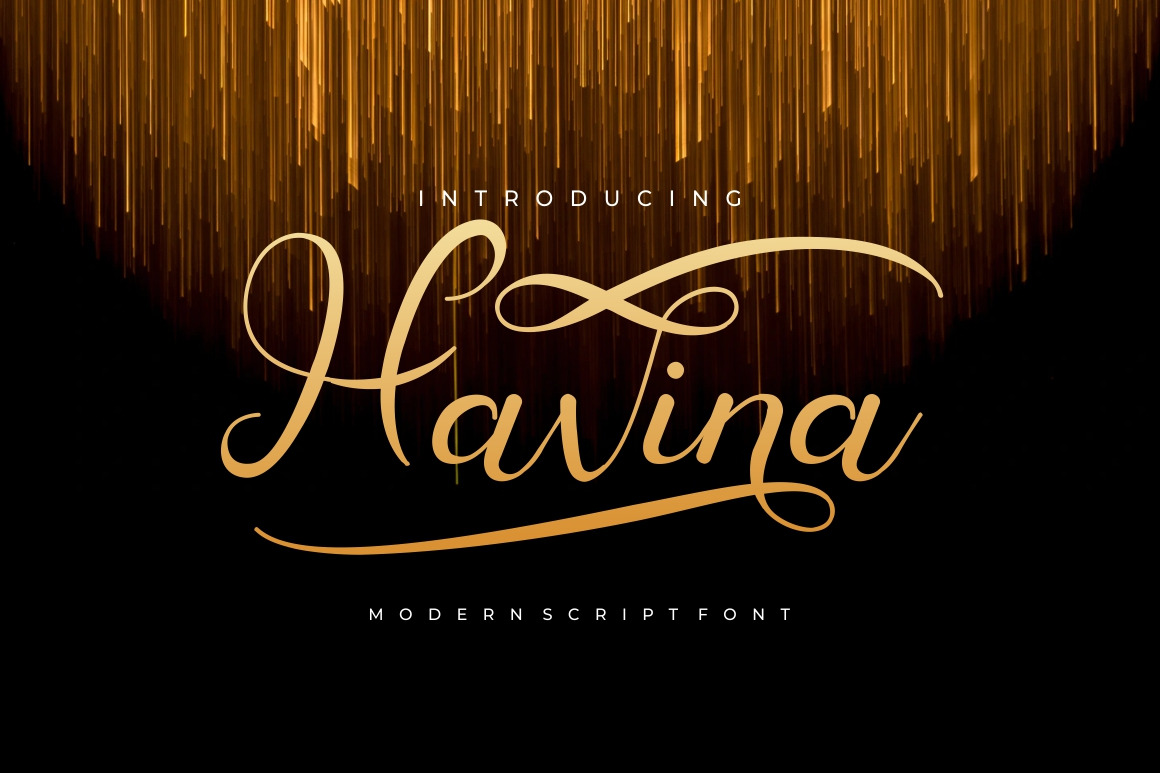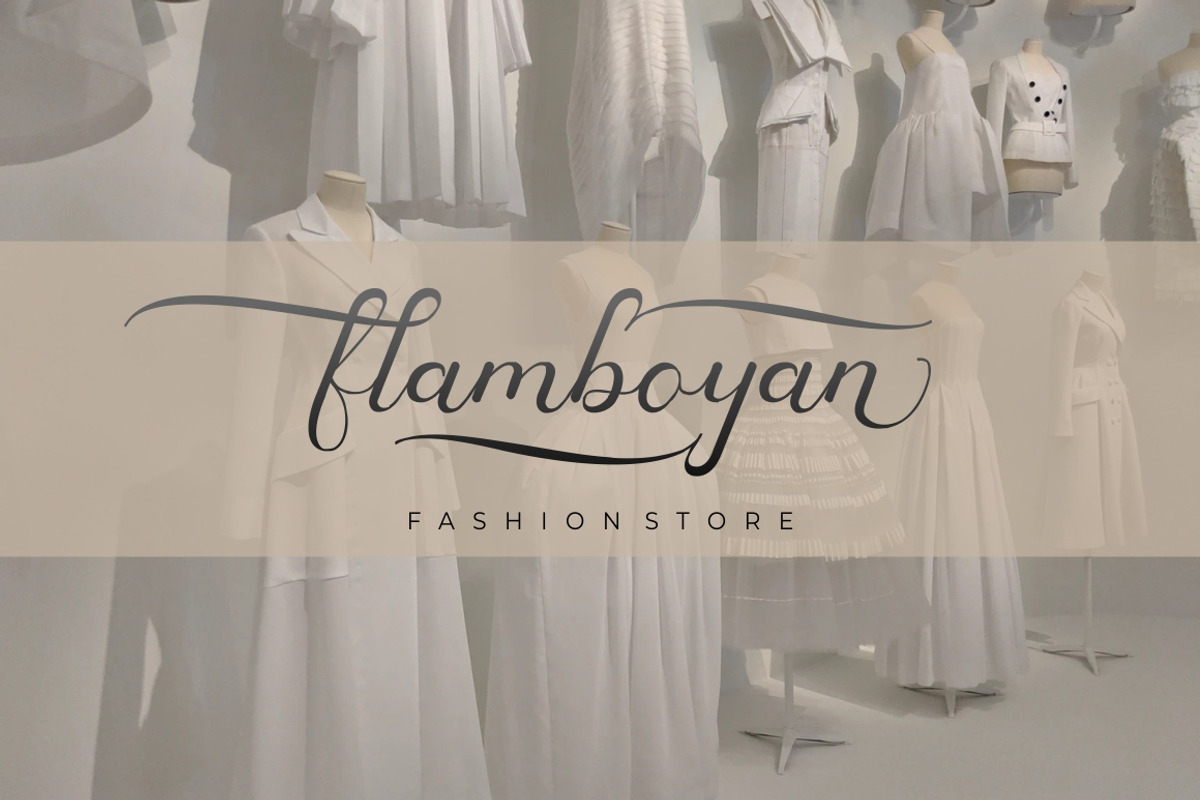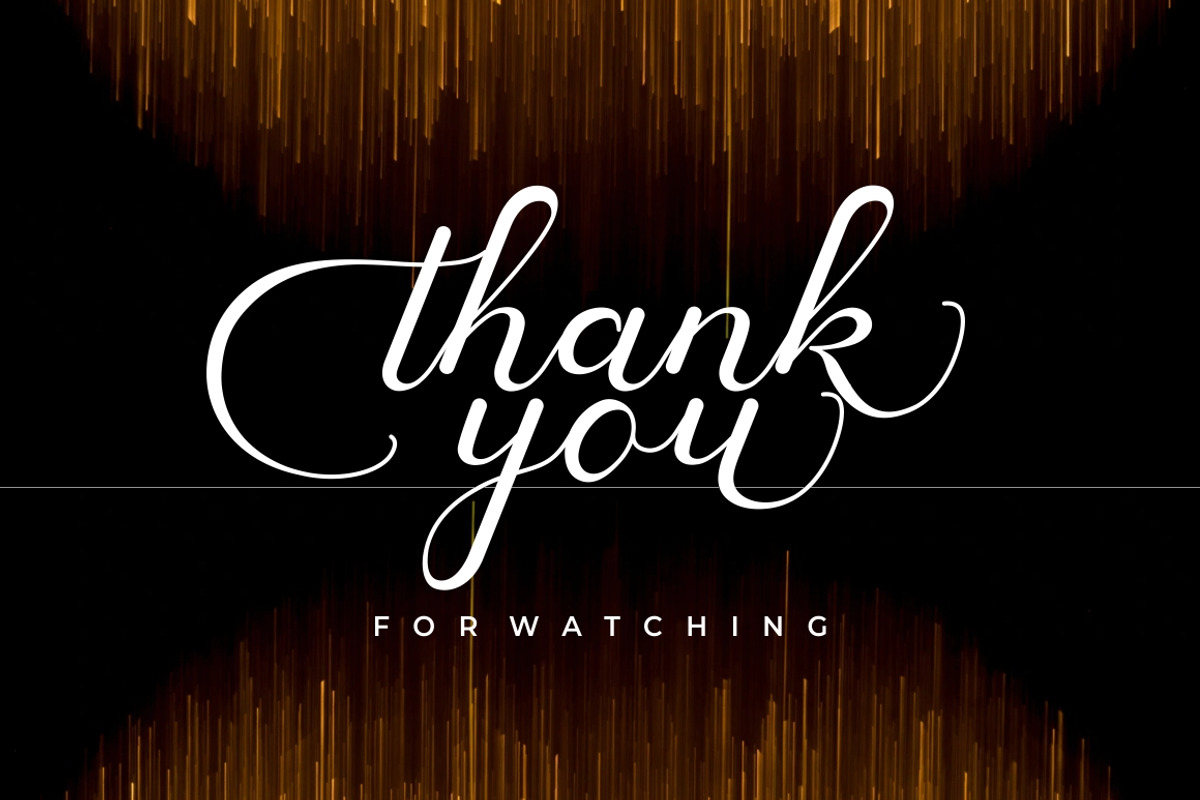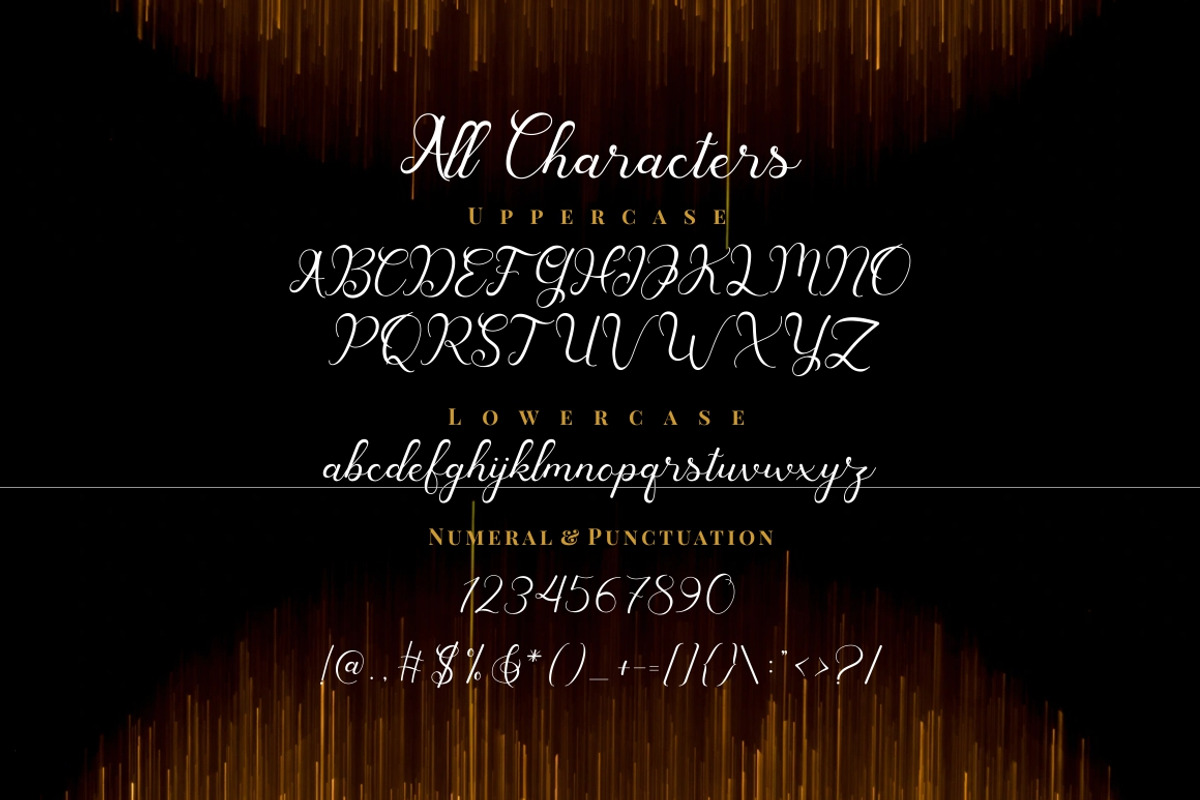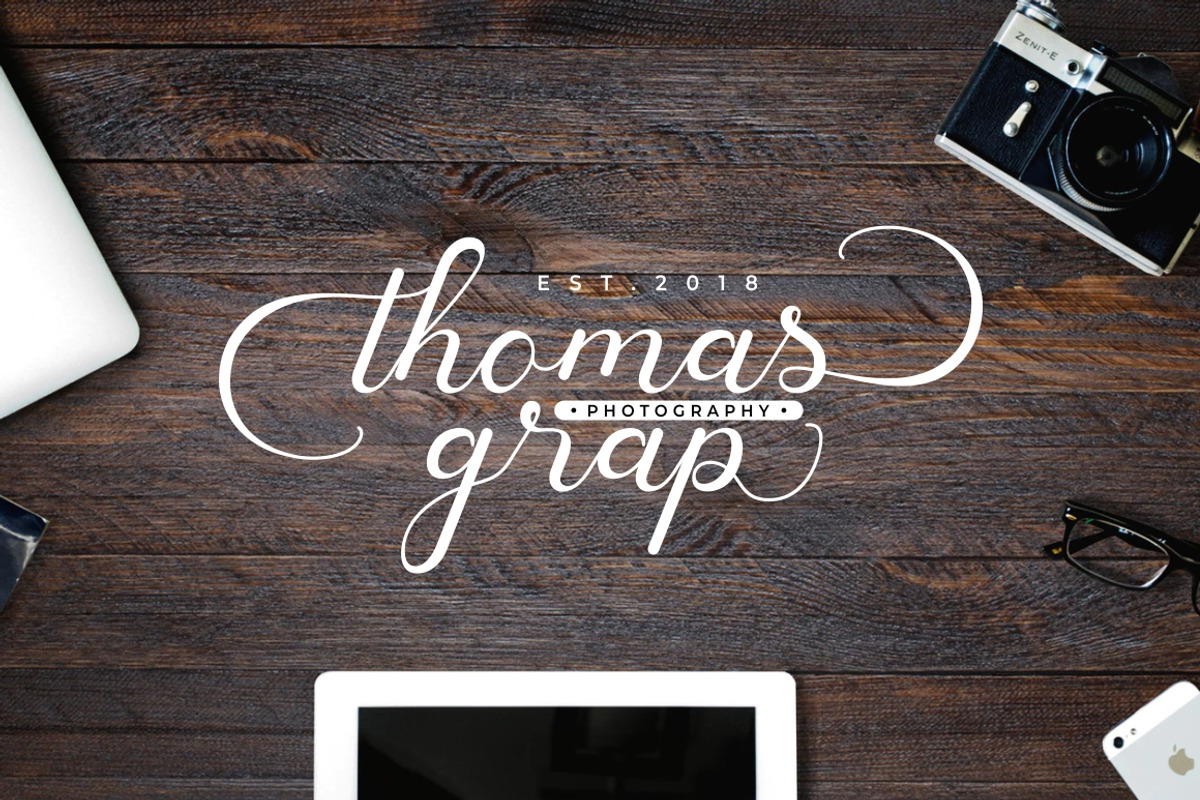
Havina Font
Havina
Introducing Havina a modern script font with a lot of alternates character and unique flourish. This font is perfect for logotype creation, lettering compositions, wedding invitations, fashion projects, book design cover, magazines typography, cards, packagings, posters, branding and more.
Come with Opentype feature with a lot of alternates, its help you to make great lettering. This font is also support multi language.